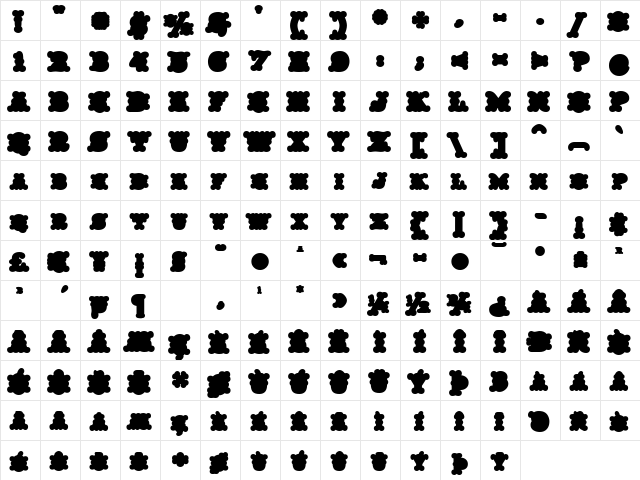
Taqueria Black Fill XL Regular Free Font
Taqueria Black Fill XL Regular
Design Context for Taqueria Black Fill XL
Taqueria Black Fill XL is a composed and adaptable typeface that performs quietly and consistently across a wide range of design contexts.
Pro Tip: Use Taqueria Black Fill XL in both headline and body roles to test its range before committing to a single application.